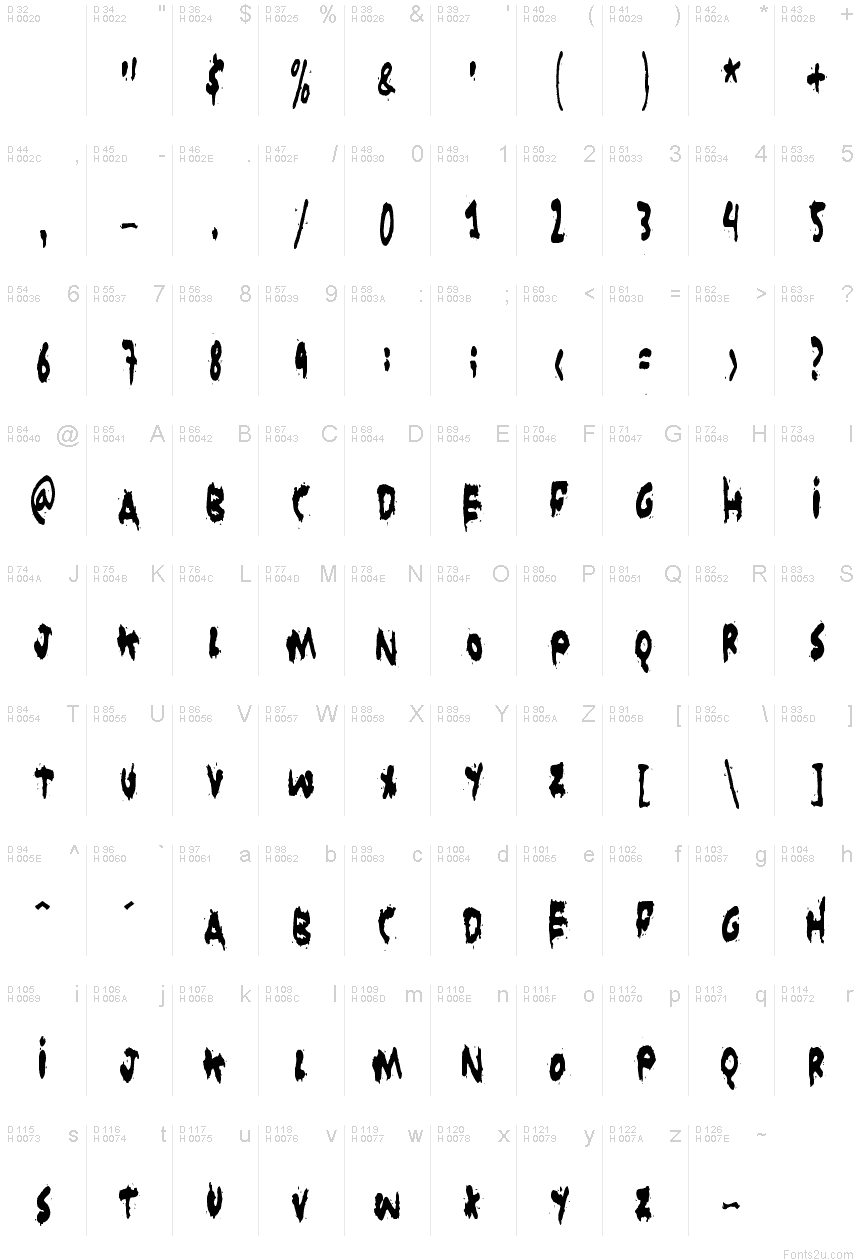
Grunt Reaper
Grunt Reaper font by Jakob Fischer is a free distorted scary display typeface. Its thick, inky strokes look like they’ve been clawed onto the page, with ragged edges and splattered gaps that feel raw and chaotic. Letters stagger and lurch just enough to feel unsteady, giving your titles the vibe of a scratched wall, a torn poster, or a warning left in a hurry.
Using Grunt Reaper, you can push horror posters, haunted house flyers, metal band logos, Halloween merch, game titles, and YouTube thumbnails into full scream mode. The dense shapes hold up well at large sizes, where every splatter reads clearly. Pair this free font with a plain, narrow sans-serif for body text to keep things legible while Grunt Reaper does the shouting.